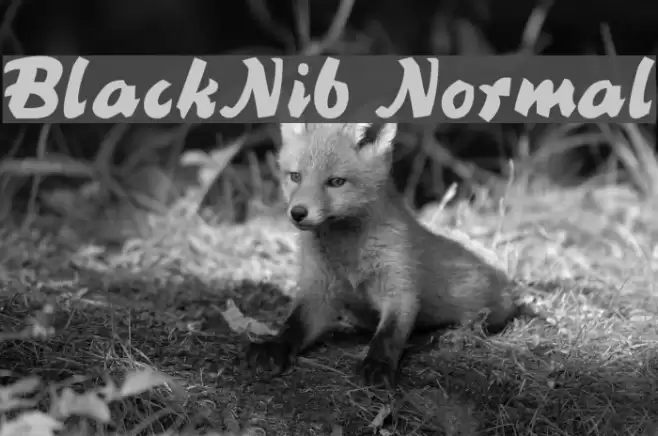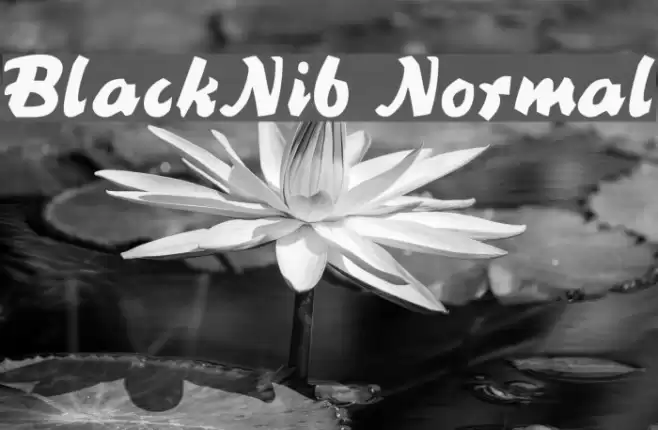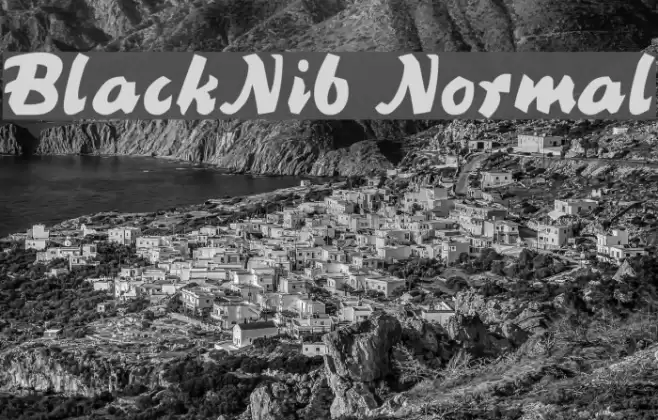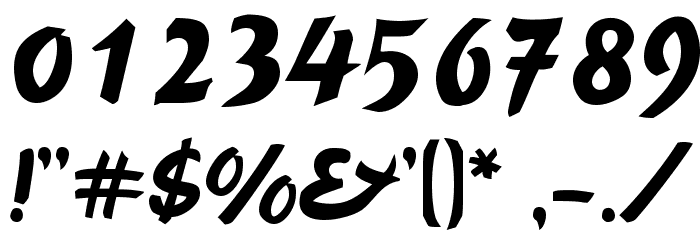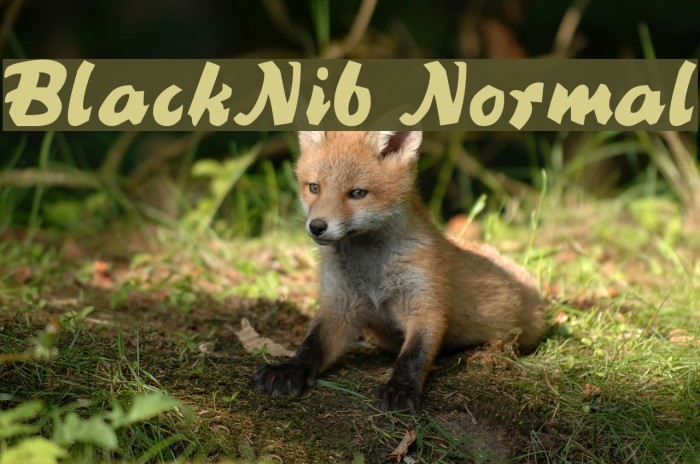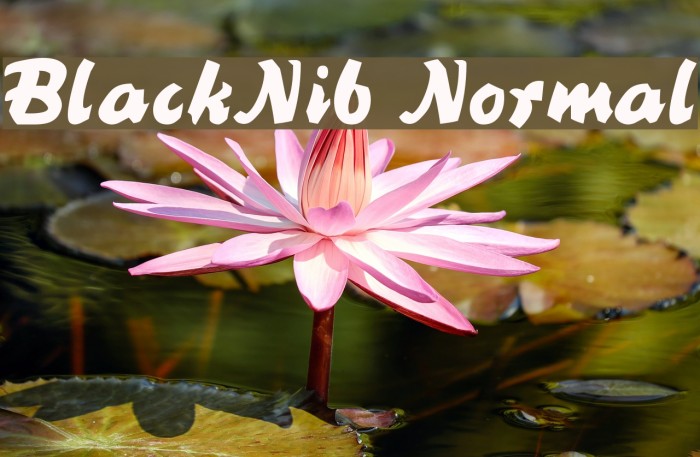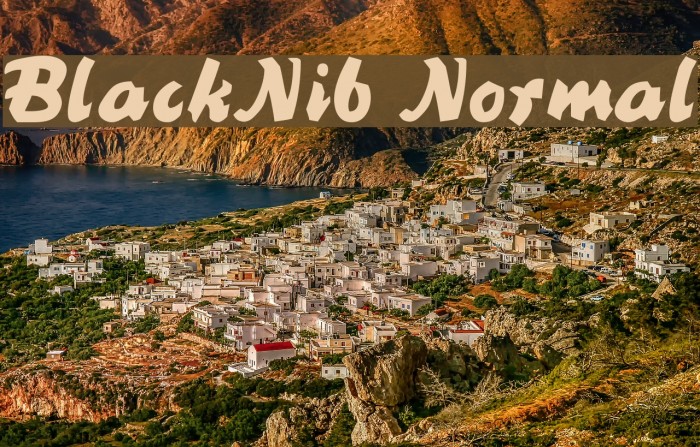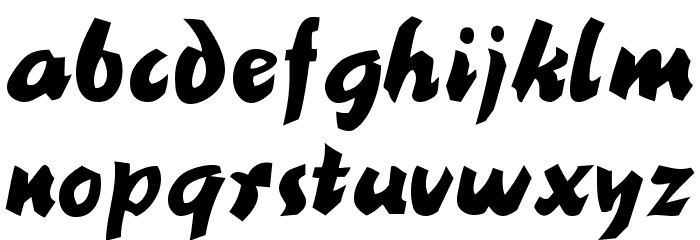
BlackNib Normal Font
BlackNib Normal Description
This font features a bold, dynamic style with a strong presence. The characters are crafted with a calligraphic flair, showcasing thick strokes and sharp angles that give it a distinctive, energetic appearance. The uppercase letters are particularly striking, with a sense of movement and flow that suggests a handwritten quality. The lowercase letters maintain this fluidity, offering a cohesive look across the alphabet. Numbers and special characters are equally bold, ensuring consistency throughout. The overall design is both artistic and legible, making it suitable for eye-catching displays.
A bold, calligraphic font with dynamic strokes and a handwritten feel from Uncategorized fonts.
- Proposed Projects: Ideal for branding, posters, headlines, and any project requiring a bold, artistic touch.